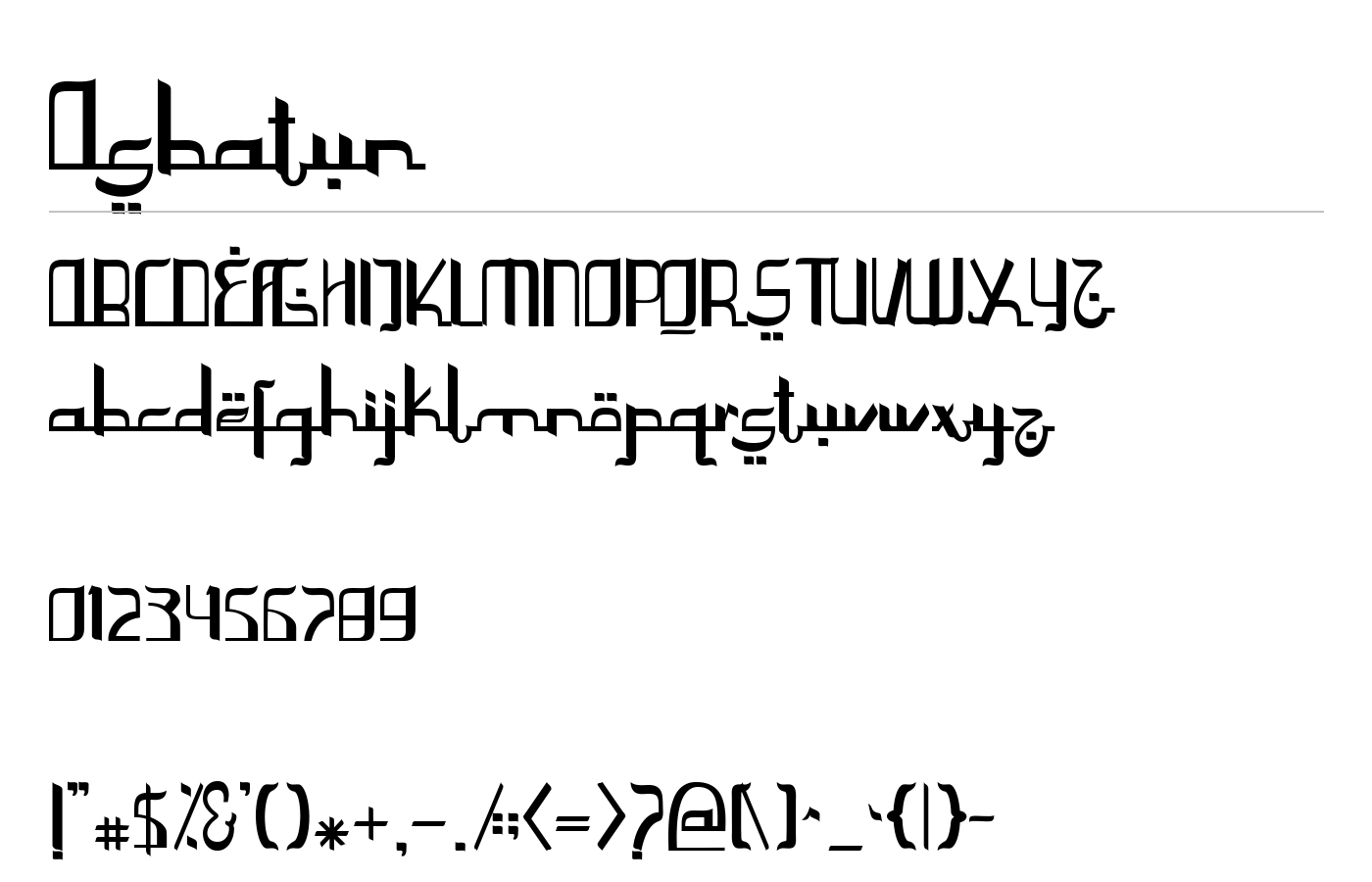
Asbatun is a unique sans serif display font with a futuristic, geometric style characterized by narrow letterforms and sharp, clean lines. Its high contrast strokes and artistic, almost calligraphic details give it a bold, modern personality perfect for tech branding, posters, and creative headlines where a distinctive and edgy look is desired. This font stands out in digital and print use, making designs feel innovative and cutting-edge.
Asbatun Font